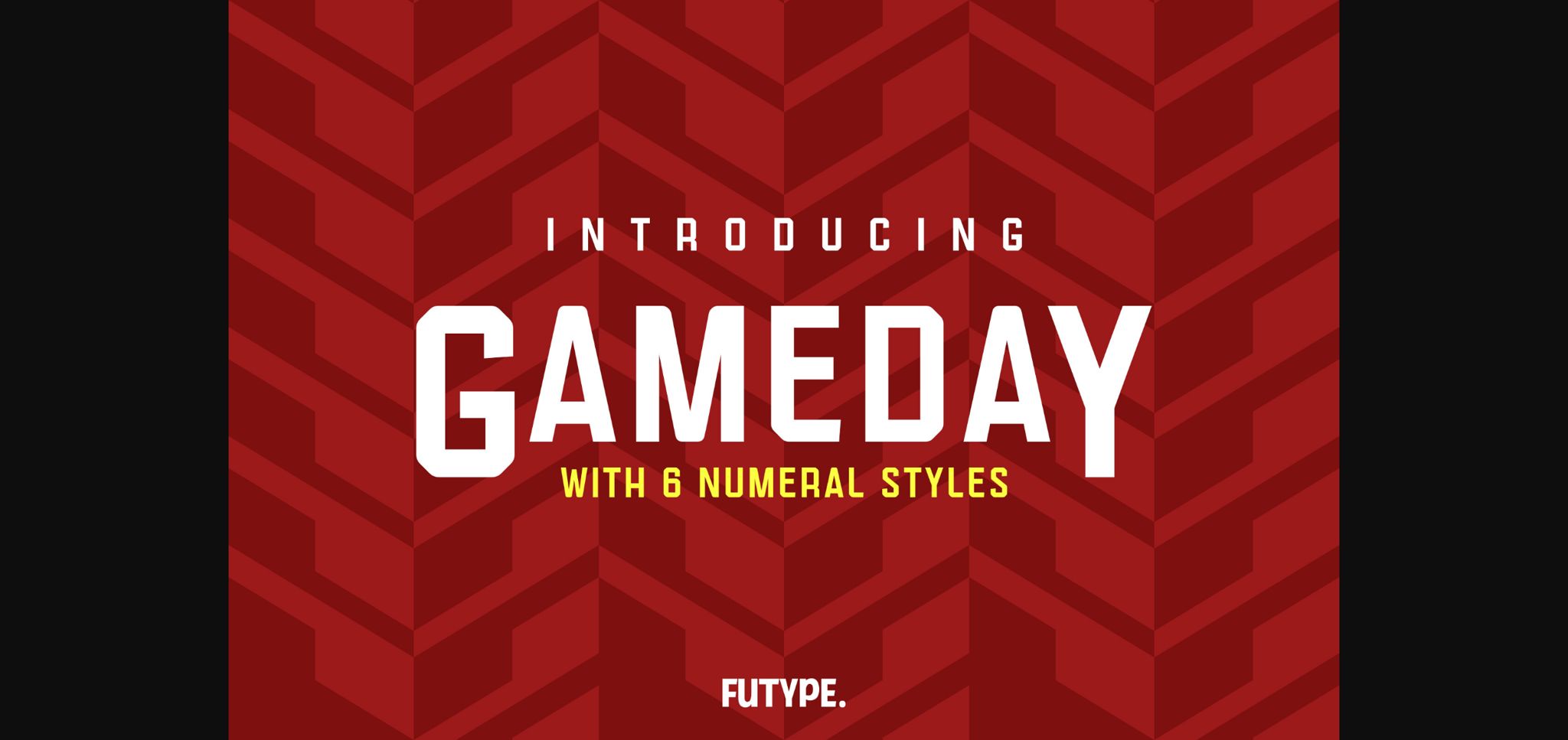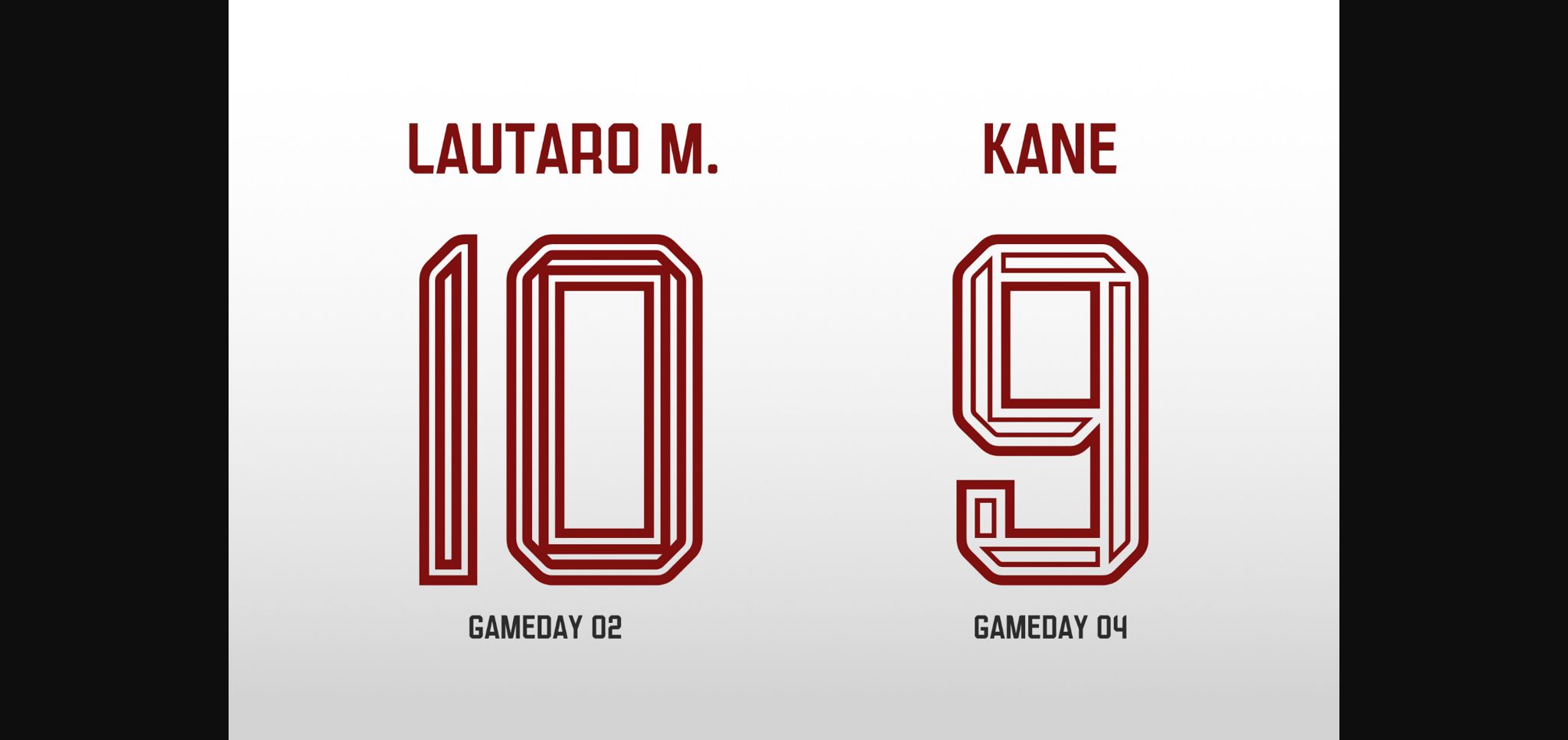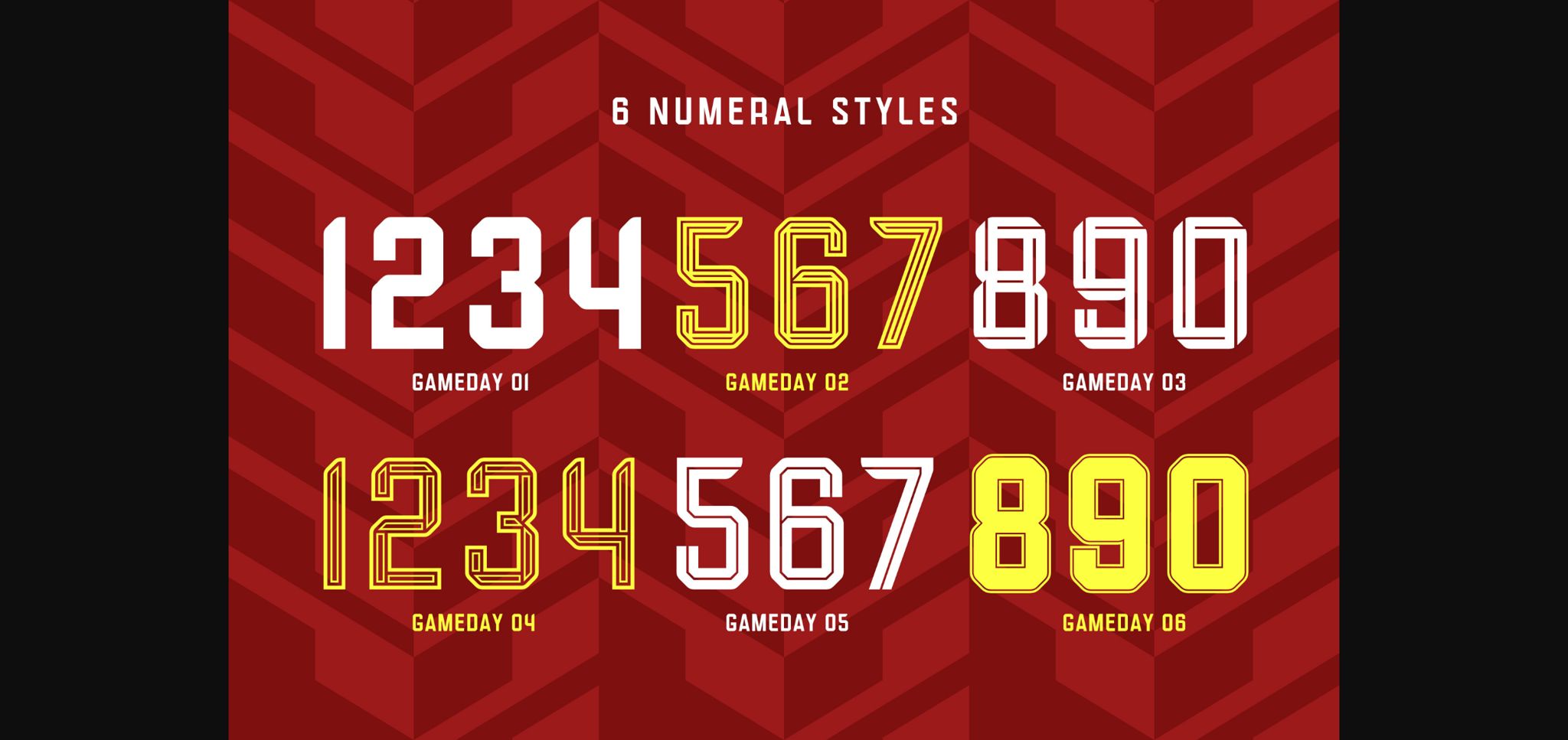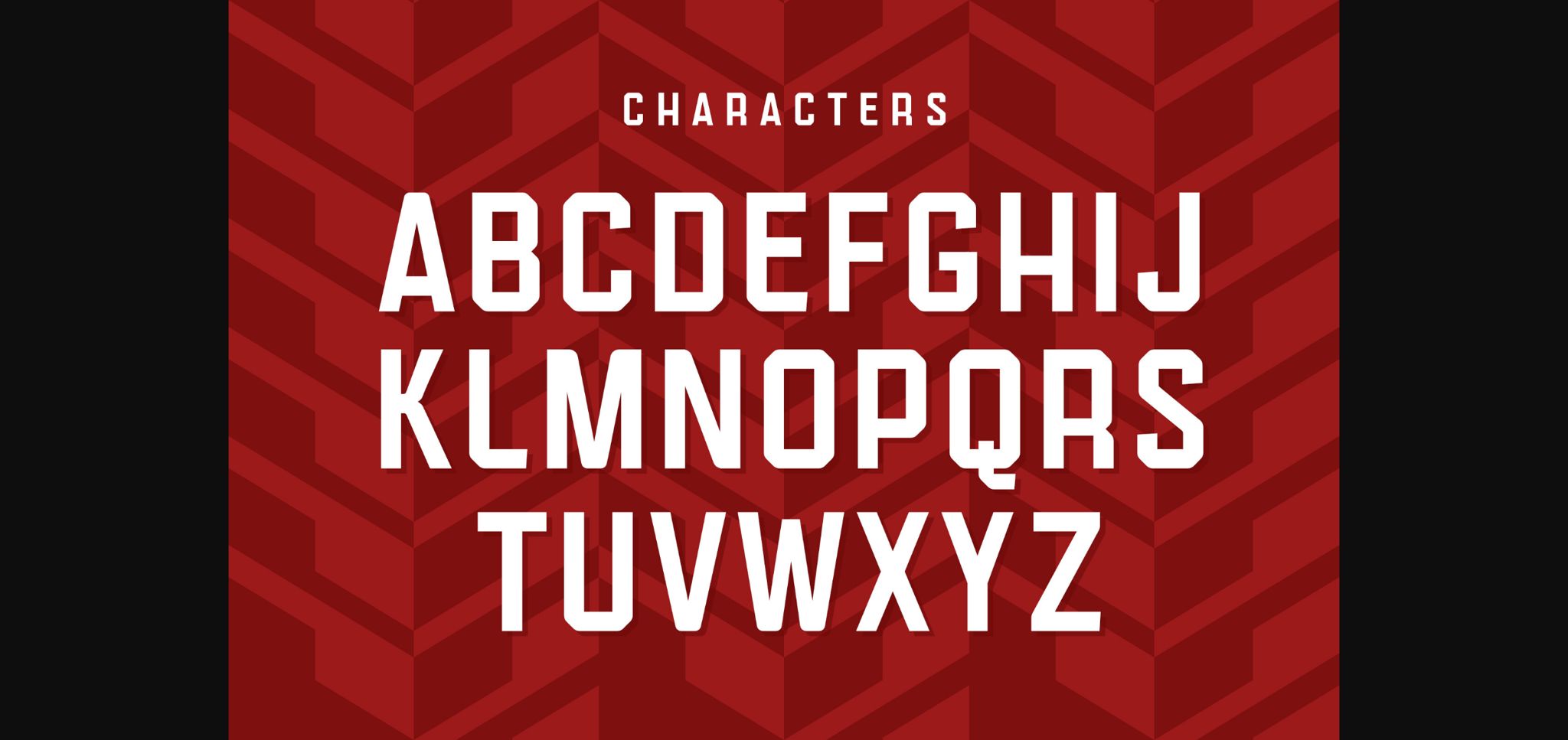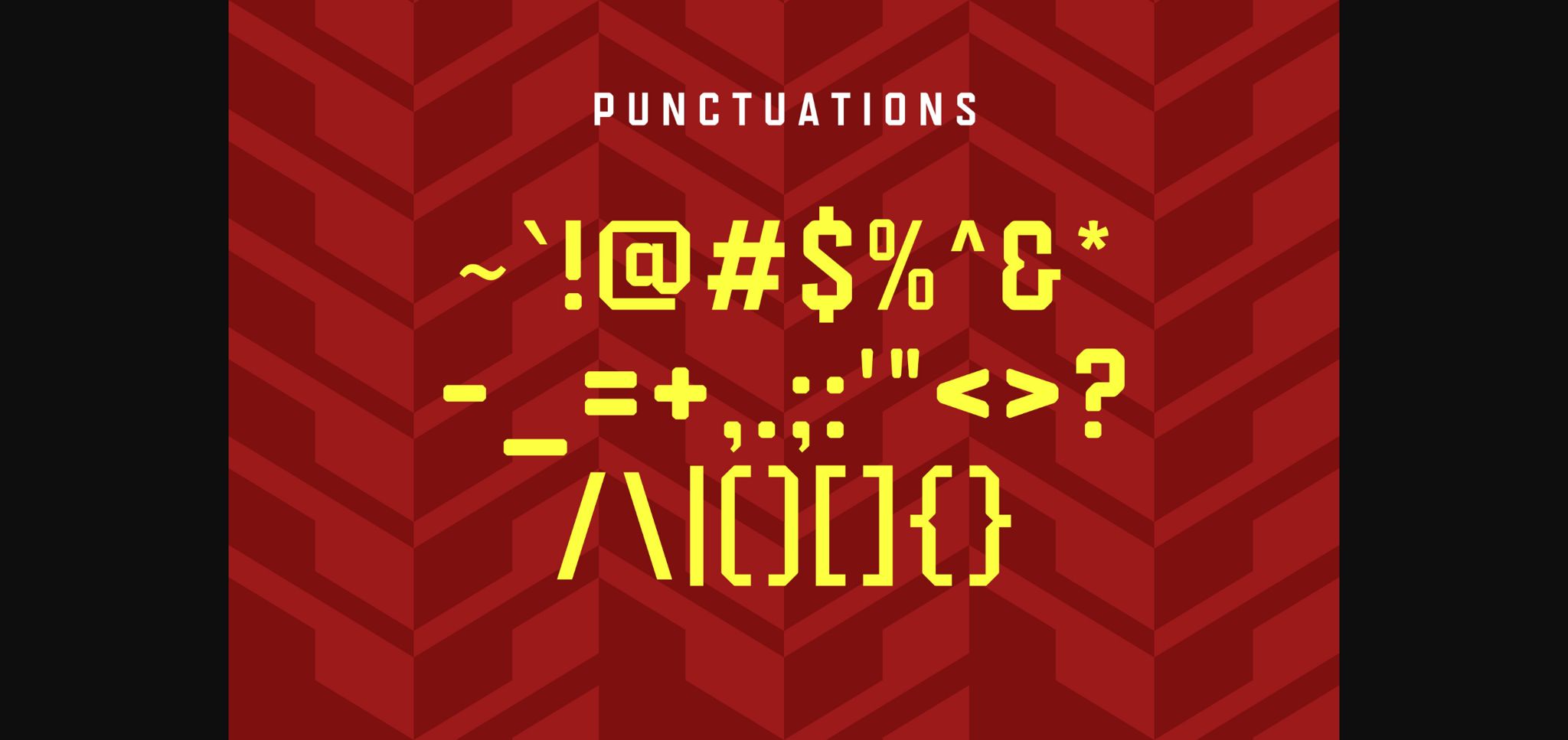
About Gameday Font
Gameday is a typeface made for football/soccer or other sports jersey/kit name and number.
Complete with 6 different styles of numeral that you can choose for your team.
Even though is made for sports, Gameday is also good for other purposes.